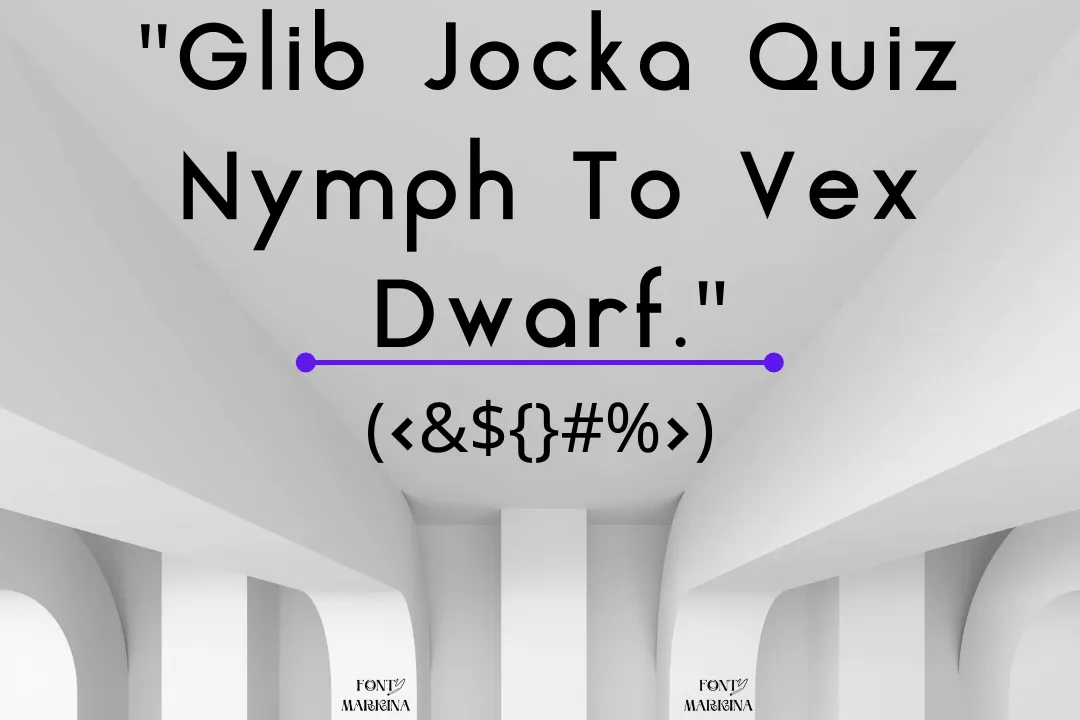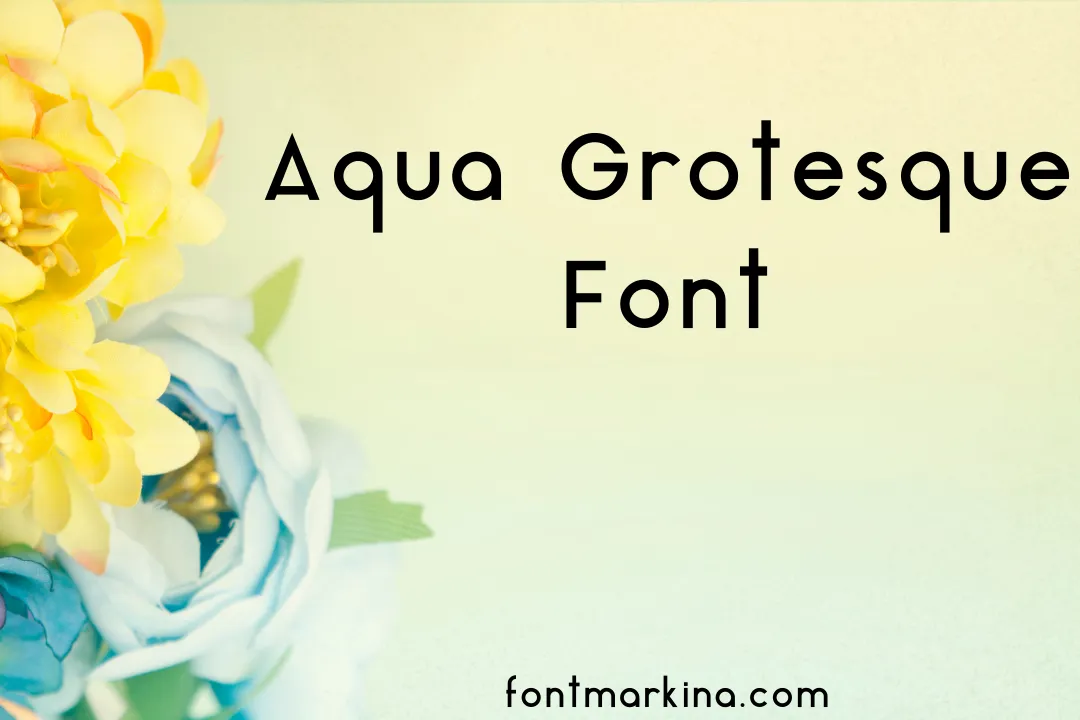
Introducing Aqua Grotesque Font, which is known for its rounded textures. Because of these textures, this typeface is different from others. It lies in the category of modern Sans Serif fonts. In the year 2014, this typeface was released. Mostly, it is suitable for use in Canva. Laura Pol is the brilliant mind typeface designer who creates it.
This font family includes 4 different and amazing styles Italic, light, Bold and regular. The main reason for its popularity is its soo much support for international languages. Also, this gorgeous set includes a large number of unique characters nearly equal to one hundred. Some common and modern characters are both uppercase and lowercase, symbols, and others.
You can also use its similar Avenir Next Font which has the same characters and styles. It also introduced a tool known as an online tool which is the best option for graphic designs. It is also known for its copy-and-paste function,
Uses of Aqua Grotesque Font
In a minimal period, this typeface is used for a variety of locations. All companies and organizations used this family for higher projects like vehicle wraps. In the business sector, the use of Aqua Grotesque typeface is necessary for daily base projects.
By making a strong pairing of this family with nimbus sans font you will get more advanced uses. Frequently this typeface is used for titles of different books, and headlines of various websites.
Aqua Grotesque Font View
| Name | Aqua Grotesque Font |
| Designer | Laura Pol |
| Style | Sans Serif |
What font is used for Aqua Grotesque Font?
Roboto Font is a famous typeface that is used for this font family. It is a high-contrast font.